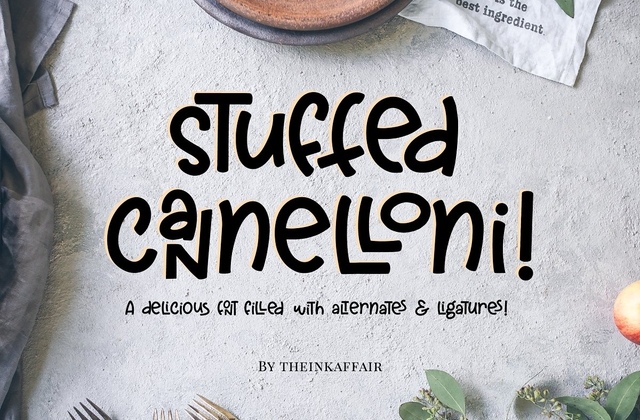
Stuffed Cannelloni Font
Stuffed Cannelloni Font is perfect for authentic Italian restaurant branding, gourmet food packaging, traditional pizzeria signage, culinary school materials, food festival promotions, and artisanal pasta company identity. Its hearty character makes it ideal for family-owned trattorias, Italian cooking magazines, specialty food markets, wine bar menus, cooking show graphics, and any project requiring delicious warmth with Mediterranean charm and traditional culinary heritage.
This font is exciting because it captures the rich tradition and passionate artistry of Italian cuisine while delivering exceptional functionality that makes every word feel like a warm invitation to experience authentic flavors. The robust letterforms evoke images of grandmother's kitchen, fresh pasta rolling, and the convivial atmosphere of Italian family gatherings, creating powerful emotional connections that resonate with food lovers seeking genuine culinary experiences.
The Stuffed Cannelloni Font family typically includes Regular, Bold, and decorative variations with culinary flourishes, Italian-inspired ornaments, and food-themed decorative elements that enhance its gastronomic personality. This comprehensive collection enables designers to create appetizing brand systems that maintain authentic Italian character while providing creative flexibility for various food industry applications and culinary market positioning strategies.
Whether you're developing identity systems for Italian restaurants, creating packaging for gourmet pasta products, or designing materials for culinary tourism campaigns, Stuffed Cannelloni Font Free Download delivers the delicious authenticity and Mediterranean warmth that connects with food enthusiasts worldwide. Its appetizing presence ensures memorable brand recognition across digital platforms and print materials, making it perfect for websites, mobile applications, and promotional campaigns that celebrate Italian culinary tradition, family recipes, and the universal joy of sharing exceptional food experiences.